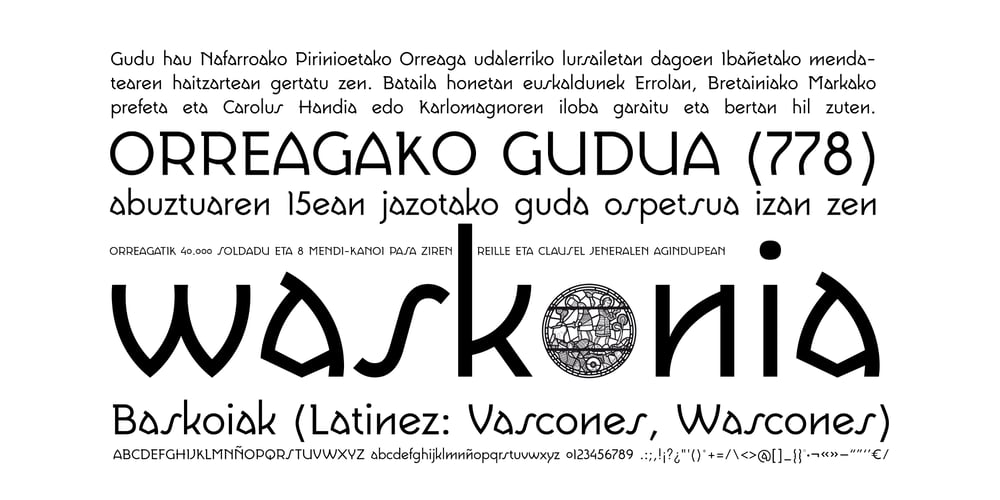
Waskonia Font Family was designed by Santos Bregaña and published by Atelier laia. Waskonia contains 1 styles and family package options. The old characters of the 8th century are the inspiration for this font. Specifically those used during a remote time of the Basque Country – or waskonia as the Franks would call it – in the old gravestones and doors entryways.